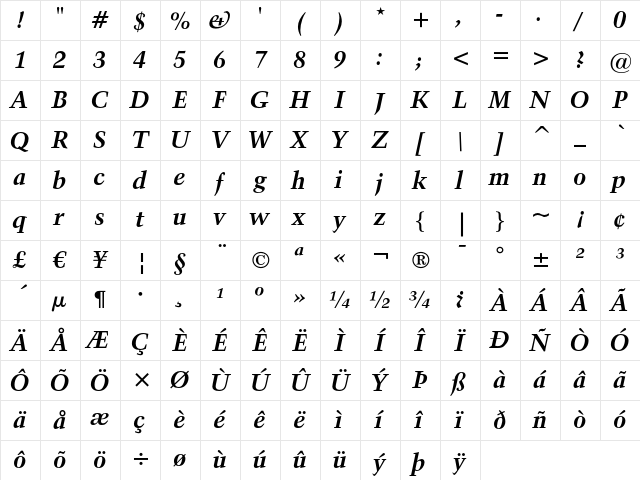
Kuenstler 480 is a composed and adaptable typeface that performs quietly and consistently across a wide range of design contexts. The slanted form adds forward momentum and visual energy. Its bold stroke weight gives it real presence on the page.
Pro Tip: Use Kuenstler 480 for emphasis, pull quotes, and subheadings where its slanted energy can add rhythm to the layout.